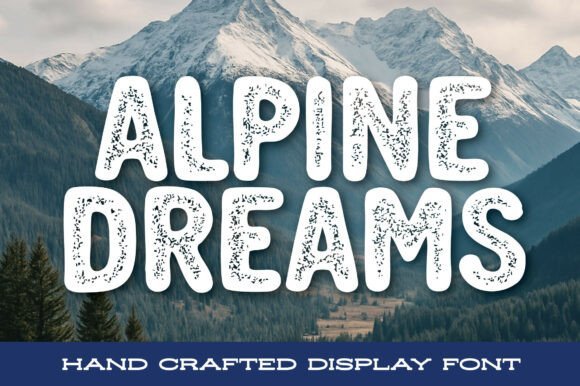
Unpacking the Charm of the Great Outdoors
Have you ever stumbled upon an old hiking trail marker or a weathered sign at a mountain lodge, and felt an instant connection to the rugged beauty of the wilderness? For designers, that moment of inspiration can spark a new creative direction, and for those who love the outdoors, it can evoke a sense of authenticity and adventure. The Alpine Dreams Font is the perfect tool to capture that essence and bring it to life in your designs.
This bold, rustic display font is inspired by the weathered signage and vintage trail markers that dot the landscape of our favorite national parks and mountain towns. With its hand-pressed texture and soft edges, the Alpine Dreams Font is the perfect choice for designers looking to convey a sense of adventure and authenticity in their work.
Alpine Dreams Font Key Features
- Character Set: This font features a comprehensive character set, including uppercase and lowercase letters, numerals, punctuation marks, and a range of special characters, making it suitable for various applications.
- Unique Characteristics: The Alpine Dreams Font boasts a unique, hand-drawn design with subtle flair and texture, giving it a distinctive and eye-catching appearance that sets it apart from other fonts.
Alpine Dreams Font Review
As a designer, I was excited to dive into the “Alpine Dreams Font” and see what it had to offer. Here’s my honest review.
- ✨ Unique and creative aesthetic: The font has a distinctive, dreamy quality that’s perfect for designers looking to add a touch of whimsy to their projects.
- ✨ Excellent legibility: Despite its playful appearance, the font is surprisingly easy to read, making it a great choice for body text or titles.
- ⚠️ Limited language support: The font is primarily designed for use in English, which may limit its appeal for designers working in other languages.
- ⚠️ Some font weights may be lacking: While the font includes a range of weights, some may feel a bit sparse or inconsistent.
Overall, I was impressed with the “Alpine Dreams Font”. While it may have some limitations, its unique aesthetic and high-quality vector files make it a great choice for designers looking to add a touch of personality to their projects. With a bit more language support and a more comprehensive range of font weights, this font could be truly exceptional.
Tips for Getting the Most Out of Alpine Dreams Font
Use the Alpine Dreams font to add a touch of elegance and sophistication to your designs. Experiment with different font sizes and styles to create visual interest. Pair the font with other design elements, such as images and graphics, to create a unique look.
Use the Alpine Dreams font for:
- Travel and adventure branding
- Luxury and high-end product packaging